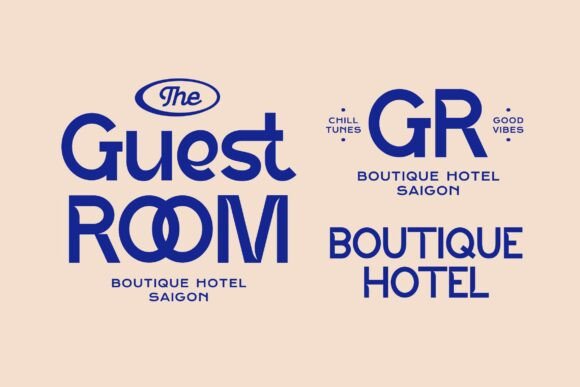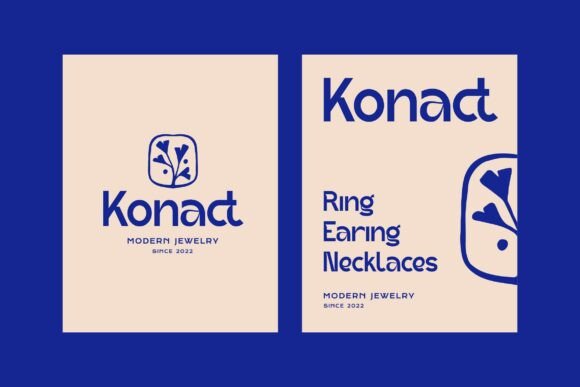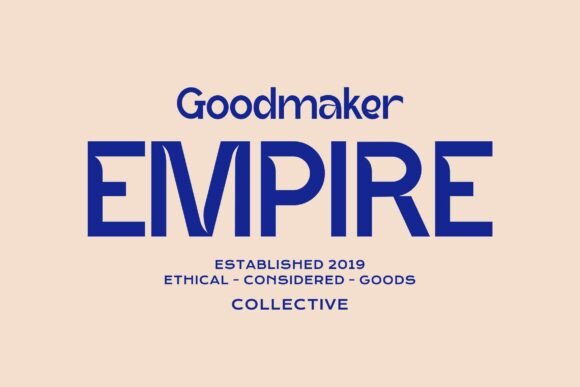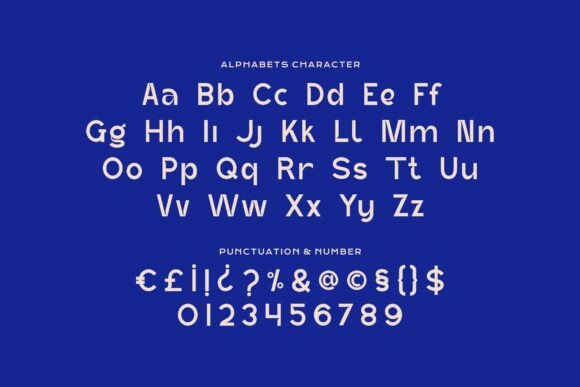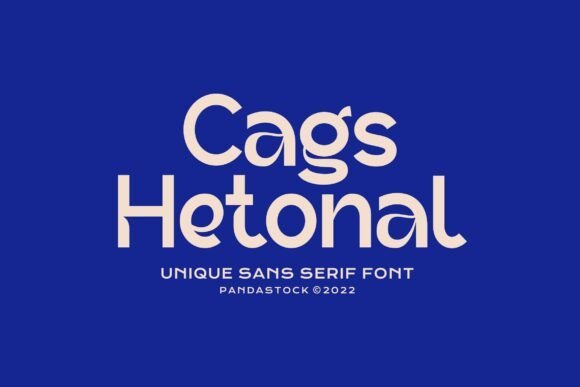
Designing with Panache: Unlock the Secrets of Cags Hetonal Font
Enter Cags Hetonal Font, a beautifully crafted sans-serif font that effortlessly blends modern minimalism with a touch of retro charm. With its strong, clean lines and slightly condensed yet impactful structure, Cags Hetonal Font is perfect for headlines, striking logos, and memorable branding. Whether you’re designing for a chic boutique hotel, a modern jewelry brand, or an ethical goods collective, this versatile font provides the flexibility and style to elevate your work.
As a designer, you know that the right font can make all the difference in capturing the essence of your vision. With Cags Hetonal Font, you’ll have effortless access to all glyphs, swashes, and alternate characters, making it a valuable addition to your design toolkit.
- Font Family: Cags Hetonal is a unique, custom font designed for specific purposes.
- Size and Resolution: Designed for optimal display at 72 dpi (dots per inch) and 96 dpi for print media.
- Unique Characteristics: Features a distinctive, hand-crafted aesthetic with intricate details and ornaments.
I’ve had the chance to work with the Cags Hetonal font, and I must say it’s an interesting choice. ✨ One of the things that works well is its unique aesthetic. It’s a blend of modern and vintage elements that can add a touch of sophistication to any design. The font’s irregularities also give it a human feel, making it perfect for branding and marketing materials where you want to convey a sense of personality.
Another advantage is its versatility. ✨ Cags Hetonal can be used in a variety of contexts, from headlines to body text, and it looks great in both print and digital formats. The font’s bold and italic styles also make it easy to create emphasis and hierarchy in your designs.
- ⚠️ The font may be challenging to read for extended periods, especially in smaller sizes. This could be a problem for publications or websites where text density is high.
- ⚠️ Cags Hetonal may not be the best choice for body text, as its irregularities can make it difficult to scan and understand.
Overall, the Cags Hetonal font is a great addition to any designer’s toolkit. While it may have some limitations, its unique aesthetic and versatility make it perfect for certain design projects. With the right use, this font can add a touch of elegance and sophistication to your designs.
Use the Cags Hetonal font for creative projects that require a unique and bold aesthetic.
Comparison to Cags Hetonal Font: Museo has a more refined and sophisticated feel, making it suitable for high-end branding and luxury products. Cags Hetonal Font, on the other hand, has a more edgy and industrial feel.
Comparison to Cags Hetonal Font: Montserrat has a more aggressive and geometric feel, making it suitable for use in streetwear and urban branding. Cags Hetonal Font has a more industrial and gritty feel, but Montserrat is more angular and modern.